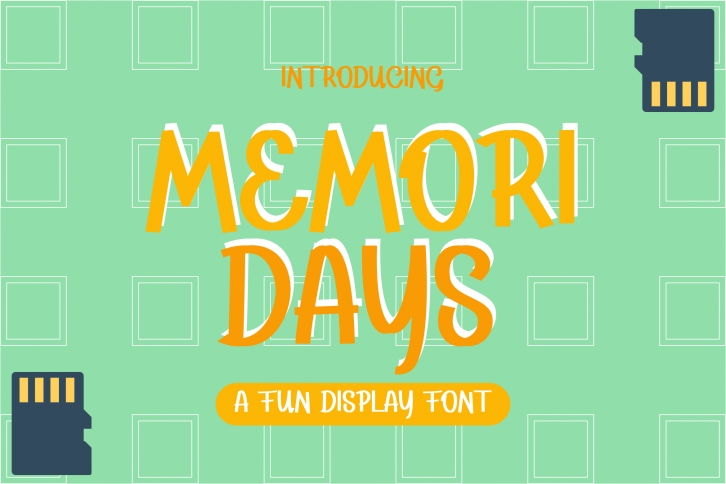
Memoridays is a fun and casual sans serif display font. Whimsical and a bit quirky, this font will brighten up each of your designs. Add it confidently to your projects, and you will love the results.